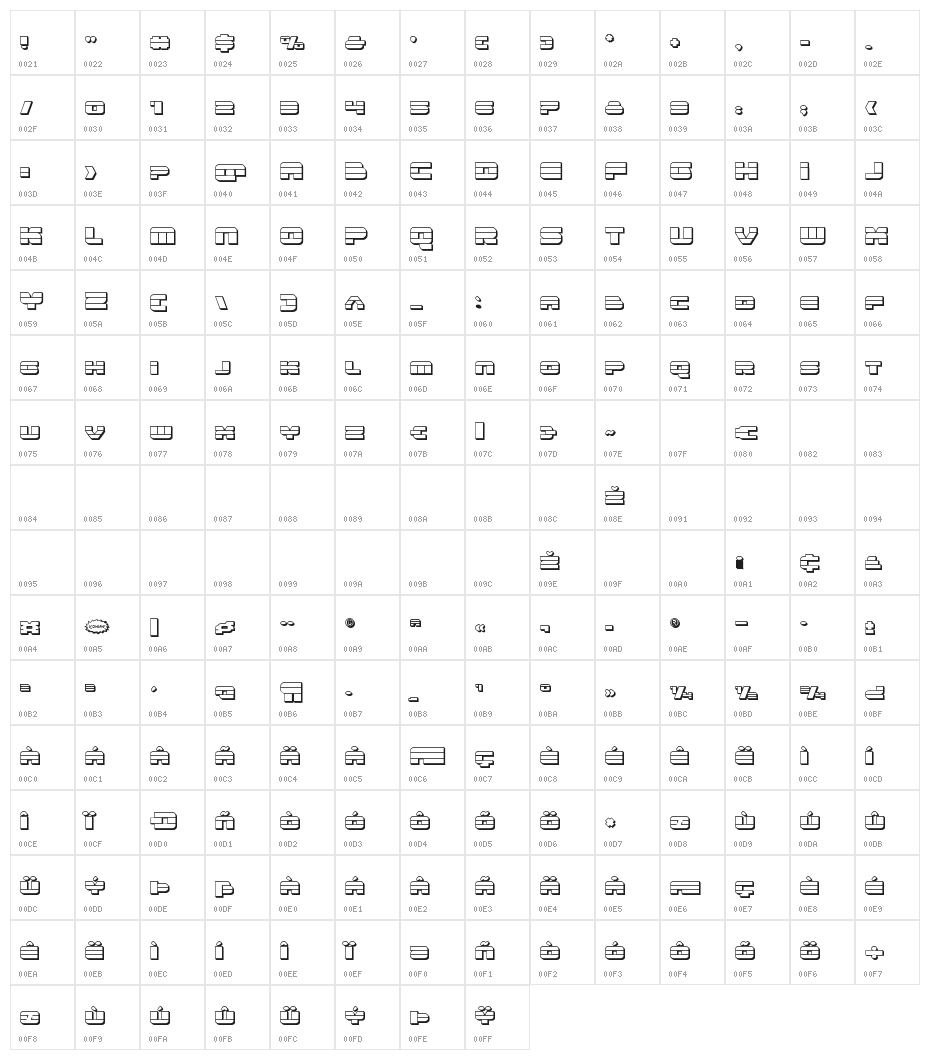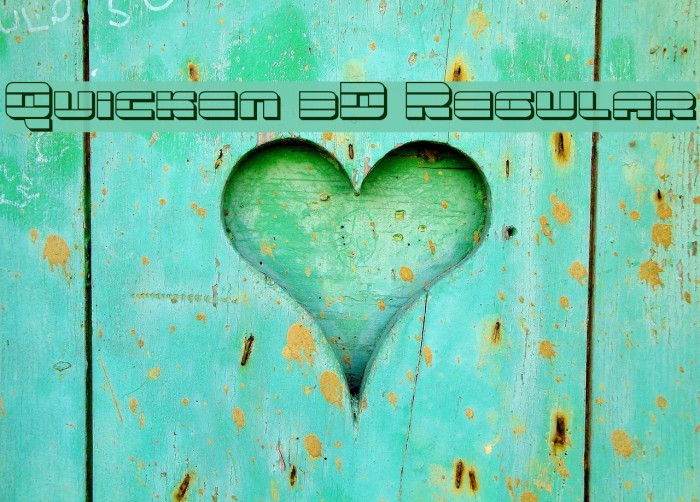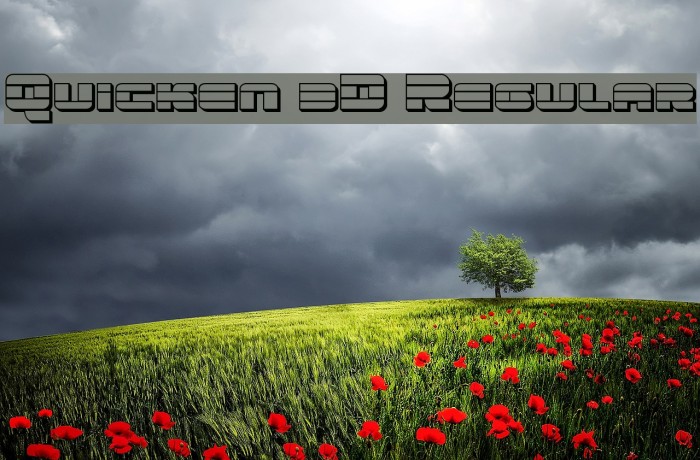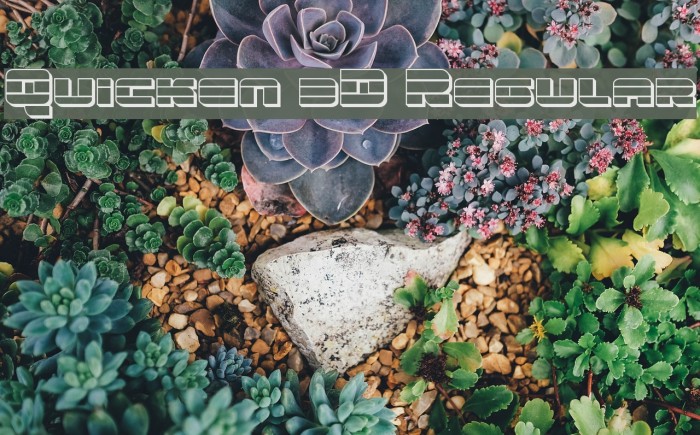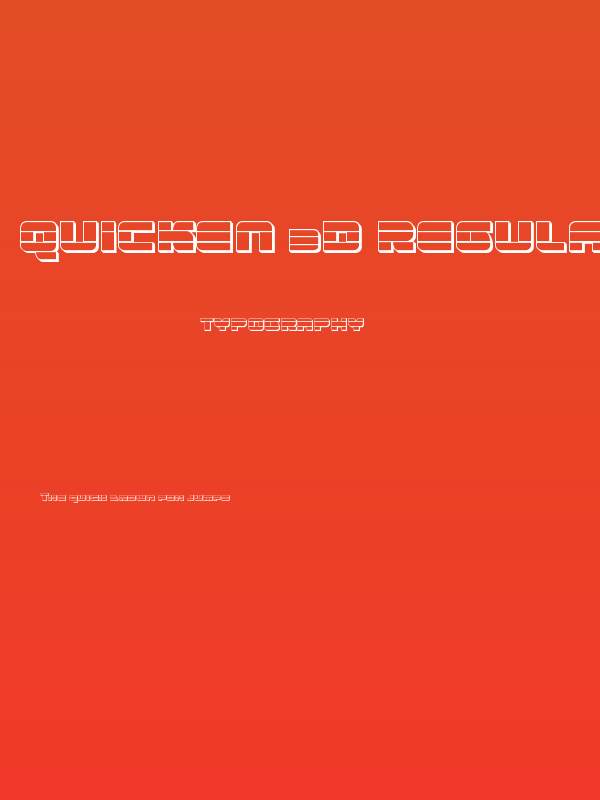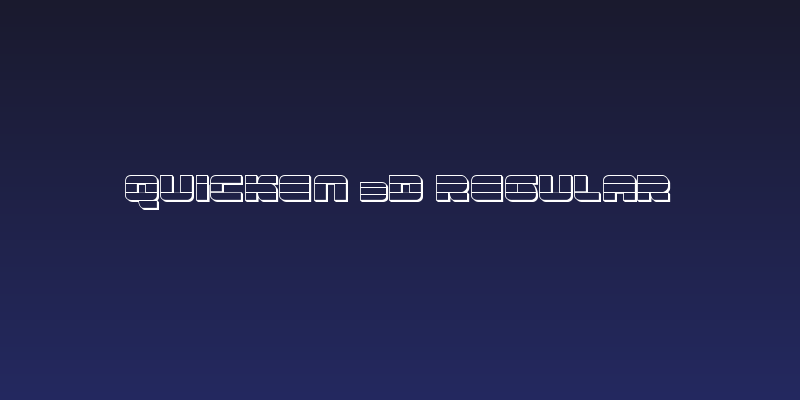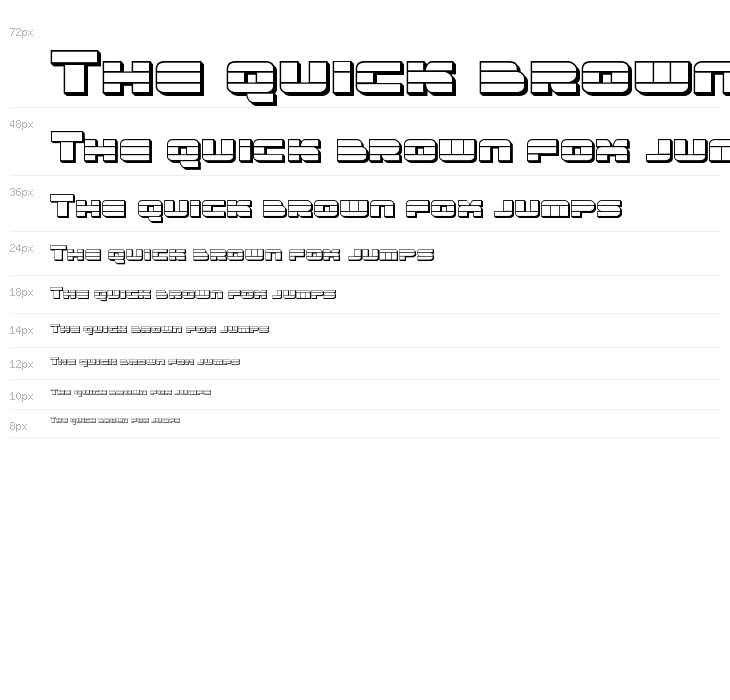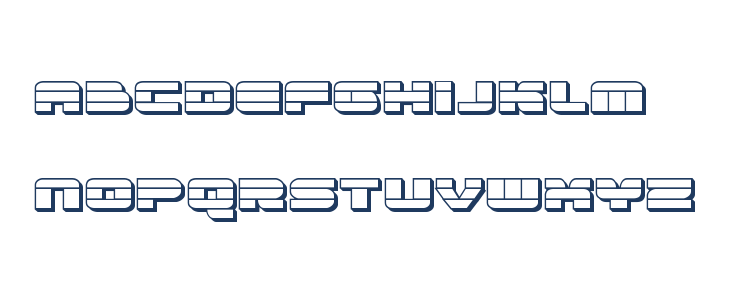
Quicken 3D Regular Font
Quicken 3D Regular Description
This font features a bold, three-dimensional design with a futuristic and geometric aesthetic. The characters are outlined with a thick border, creating a striking visual effect that gives the impression of depth and solidity. Each letter and number is constructed with a combination of straight lines and sharp angles, contributing to its modern and industrial feel. The font maintains consistent proportions across all characters, ensuring a uniform appearance. Its unique style makes it highly suitable for projects that require a standout, eye-catching typeface.
| Proposed Projects | Ideal for use in technology branding, video game titles, sci-fi movie posters, and modern advertising campaigns. |